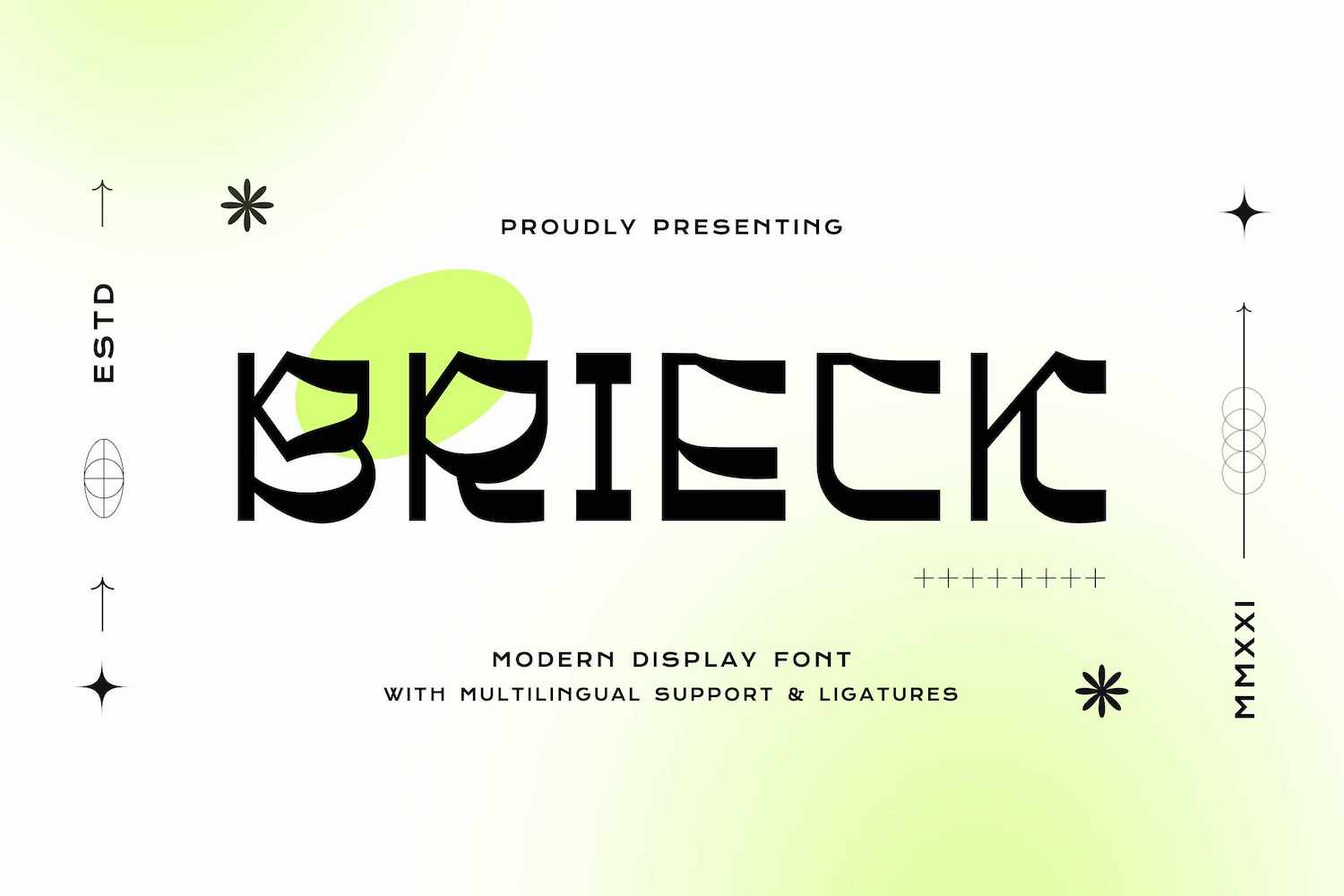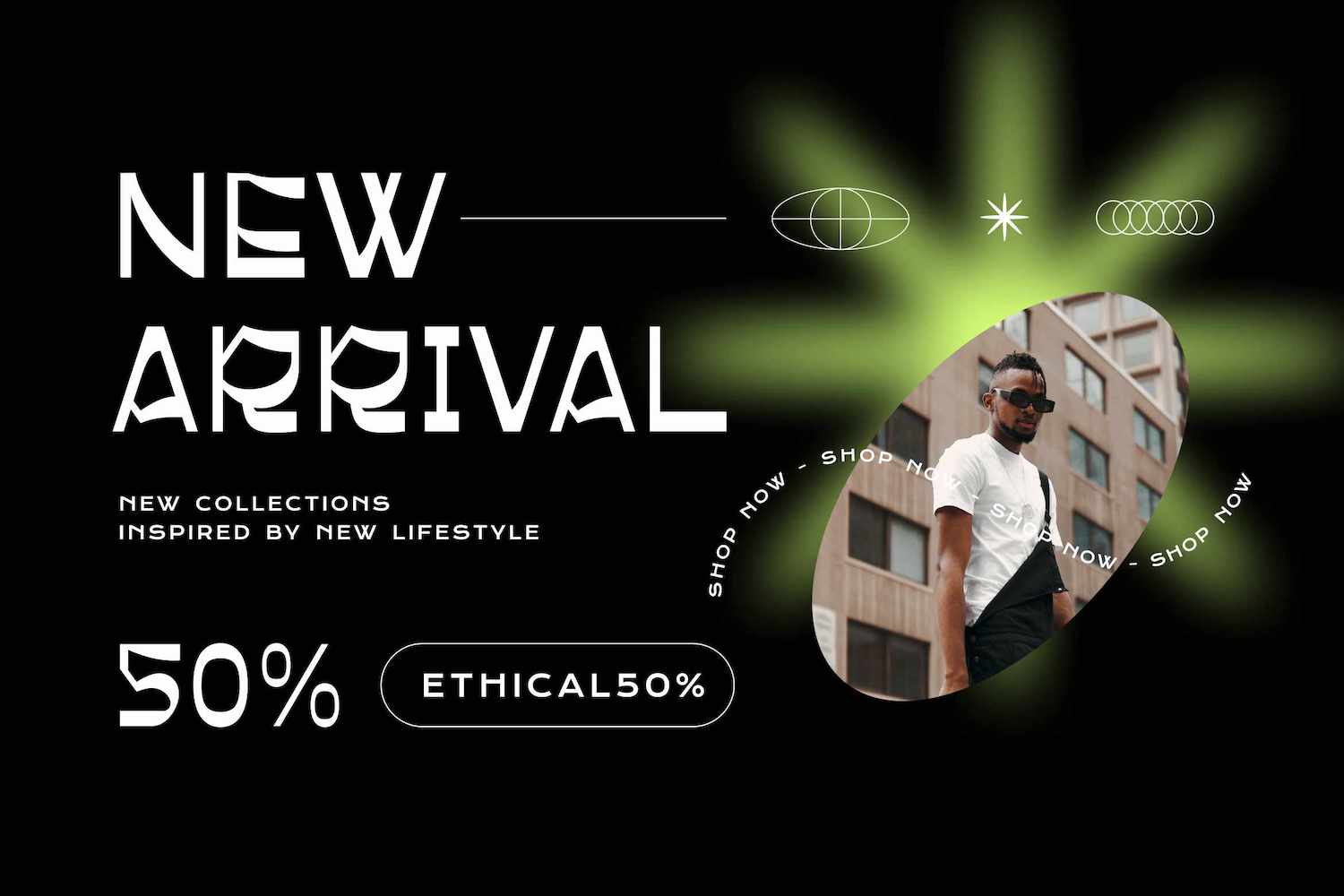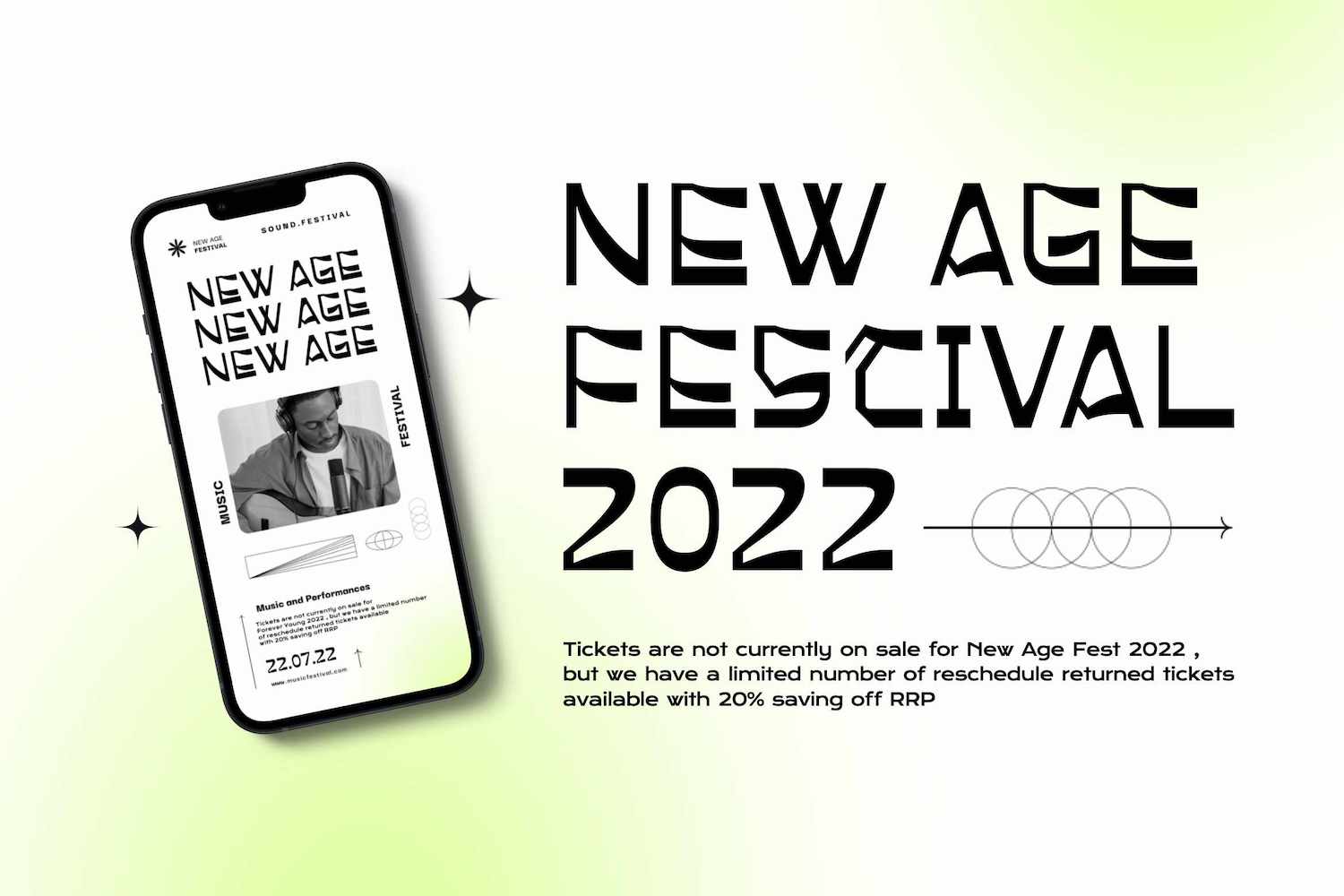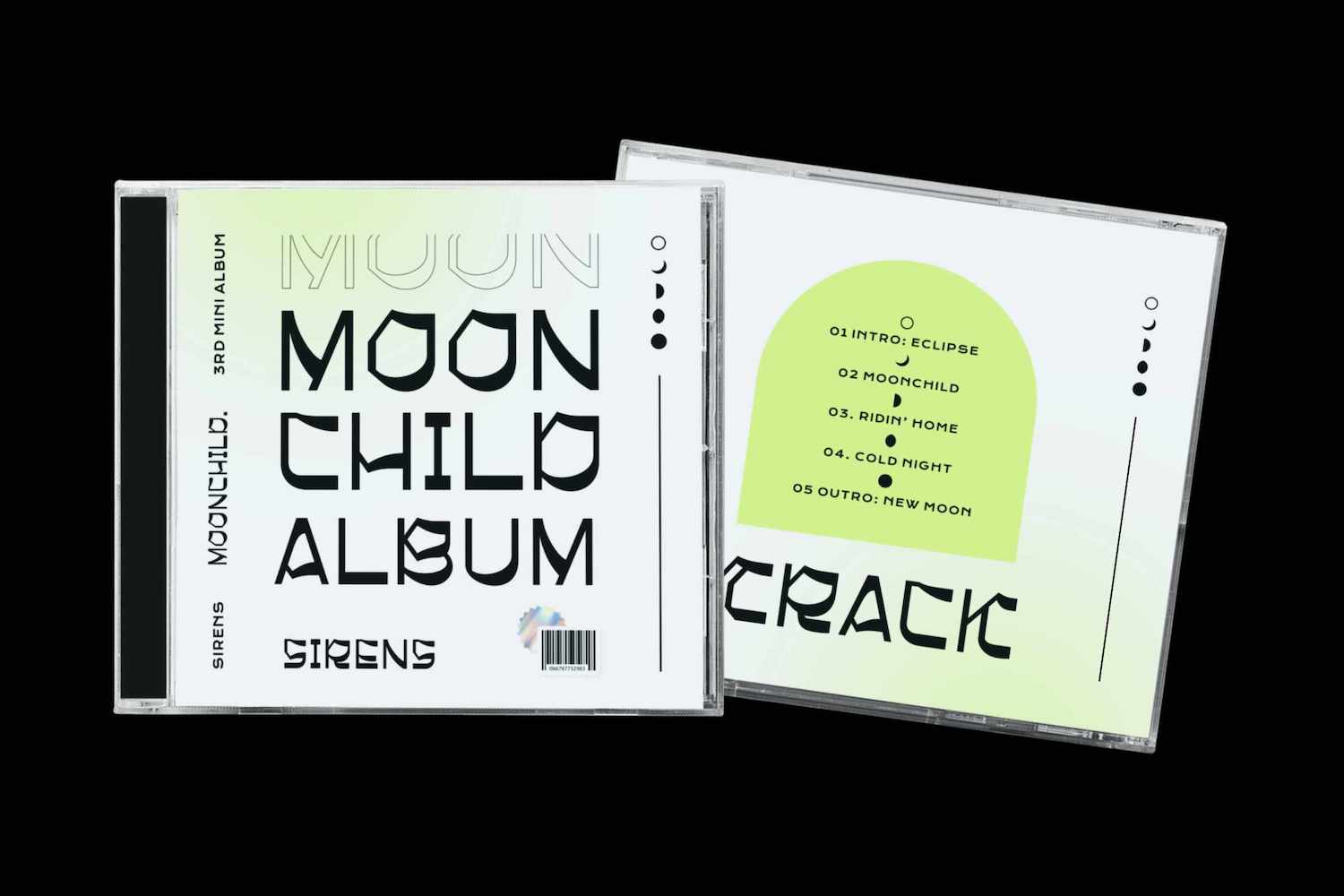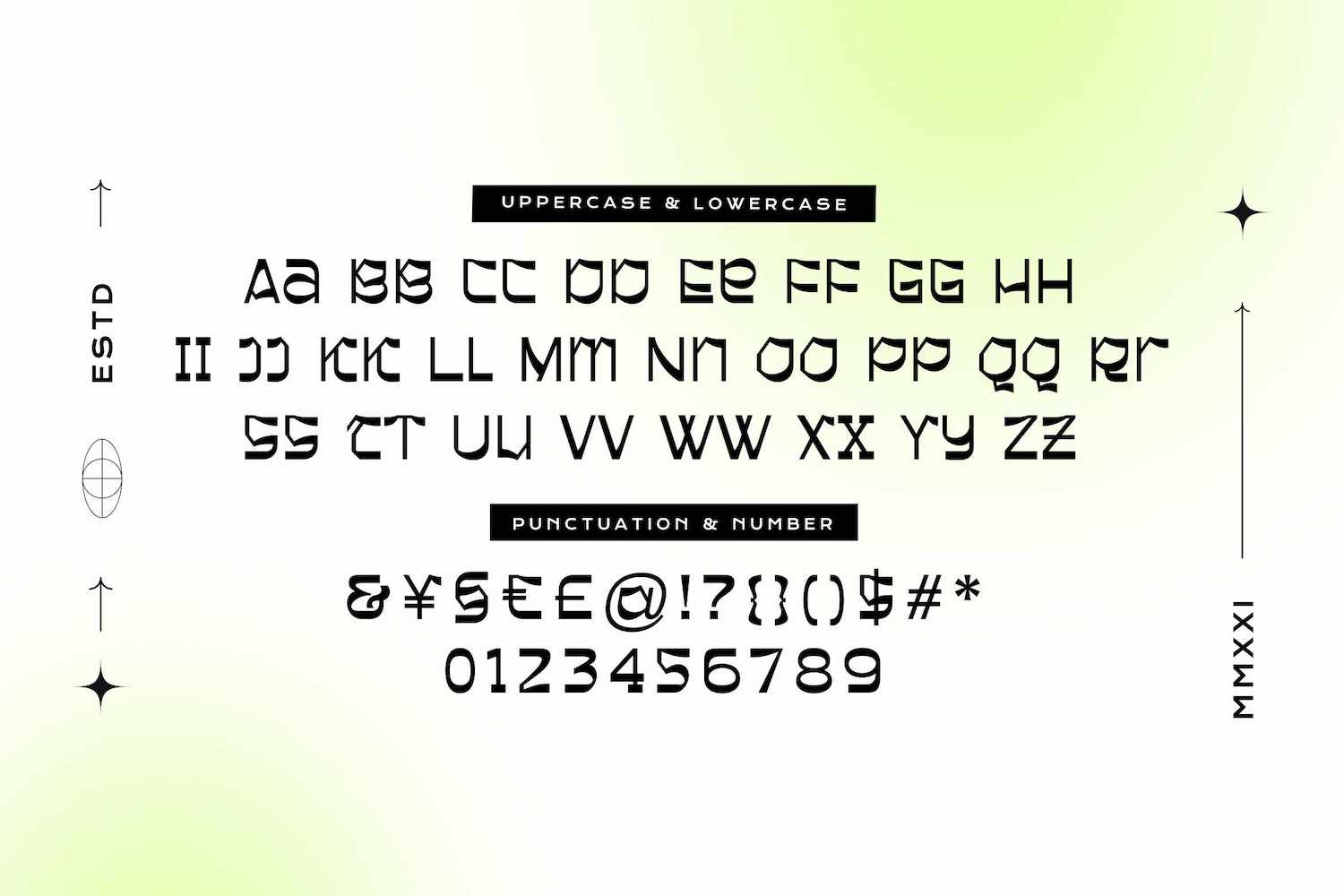
Brieck is a cutting-edge modern display font that combines bold geometric construction with futuristic character alternates. The distinct sharp edges and angular terminals create a striking and experimental visual identity, making it ideal for tech branding, fashion editorials, and experimental design themes. Its distinctive shape also ensures high recognizability in logotypes and event promotions.
This font offers uppercase, lowercase, numbers, punctuation, and multilingual support. Designed to stand out in posters, album covers, websites, and festival designs. Brieck challenges the ordinary and brings a fresh visual language to contemporary projects that aim to break the mold.